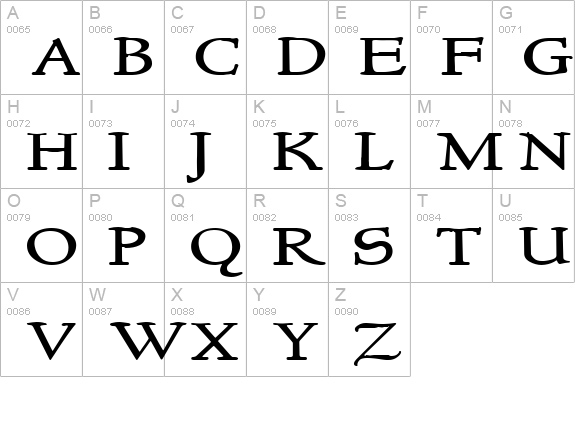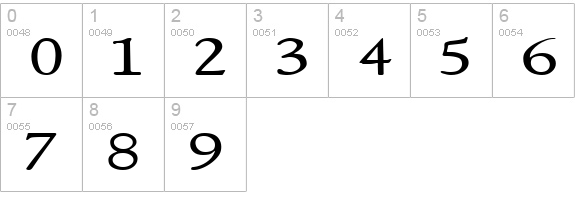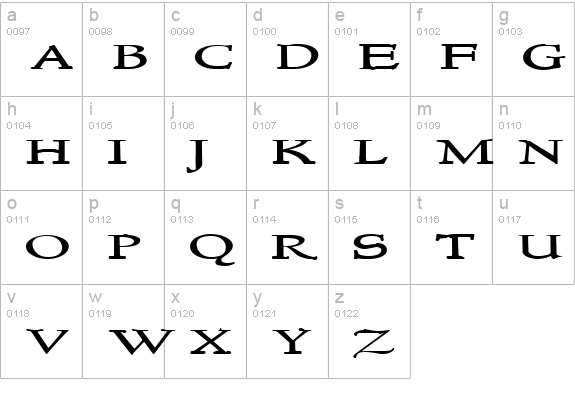
NewStyleTitlingWide Font Details
NewStyleTitlingWide font is a modern and elegant typeface that exudes sophistication and professionalism. With its clean lines and wide letterforms, this font is perfect for creating eye-catching titles and headlines that demand attention. Whether you're designing a sleek logo, a striking poster, or a stylish website, NewStyleTitlingWide is sure to make a bold statement. Best of all, NewStyleTitlingWide font is available for free download at FontsMarket.com. Now you can elevate your design projects with this versatile and stylish font without breaking the bank. Don't miss out on the opportunity to add NewStyleTitlingWide to your font collection today!